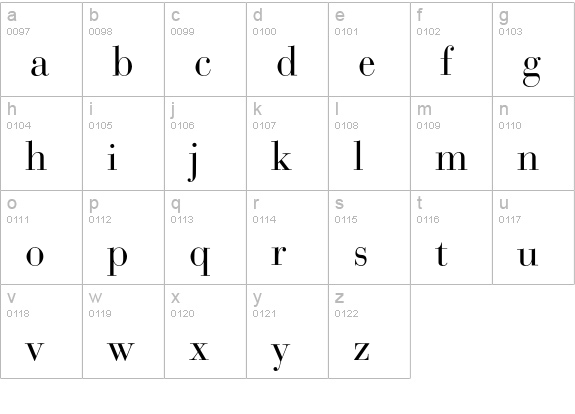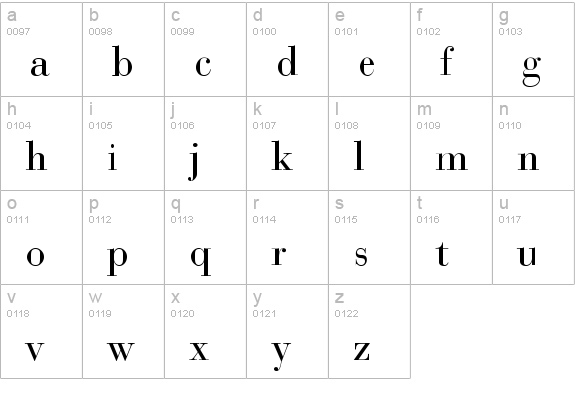
Bauer Bodoni Regular is the standard, neutral variant in the Bauer typeface family \xE2\x80\x94 well suited to general body text, paragraphs, and standard typographic work.
Bauer Bodoni Regular is a timeless and elegant typeface that exudes sophistication and class. With its clean lines and graceful curves, this font is perfect for a wide range of design projects, from branding to editorial layouts. The classic serif style of Bauer Bodoni Regular lends a sense of tradition and refinement to any text it graces. What sets Bauer Bodoni Regular apart is its versatility - it can be used for both display and body text with equal ease, making it a go-to choice for designers looking for a reliable and stylish font. Its readability and clarity make it an excellent choice for conveying important information in a clear and professional manner. The best part? Bauer Bodoni Regular is available for free download at FontsMarket.com, allowing designers to access this beautiful typeface without breaking the bank. Whether you're working on a print project or a digital design, Bauer Bodoni Regular is sure to elevate your work and leave a lasting impression.